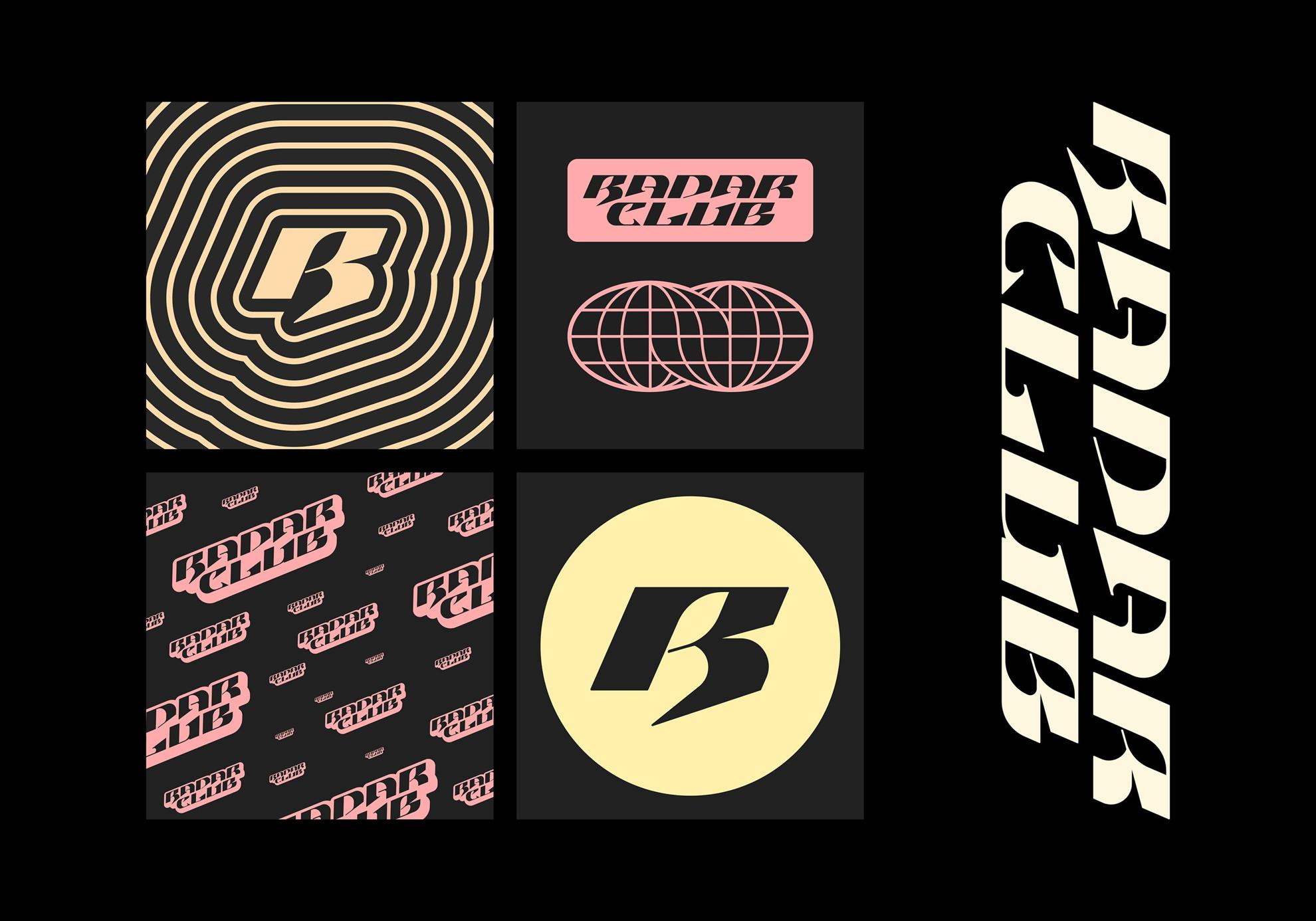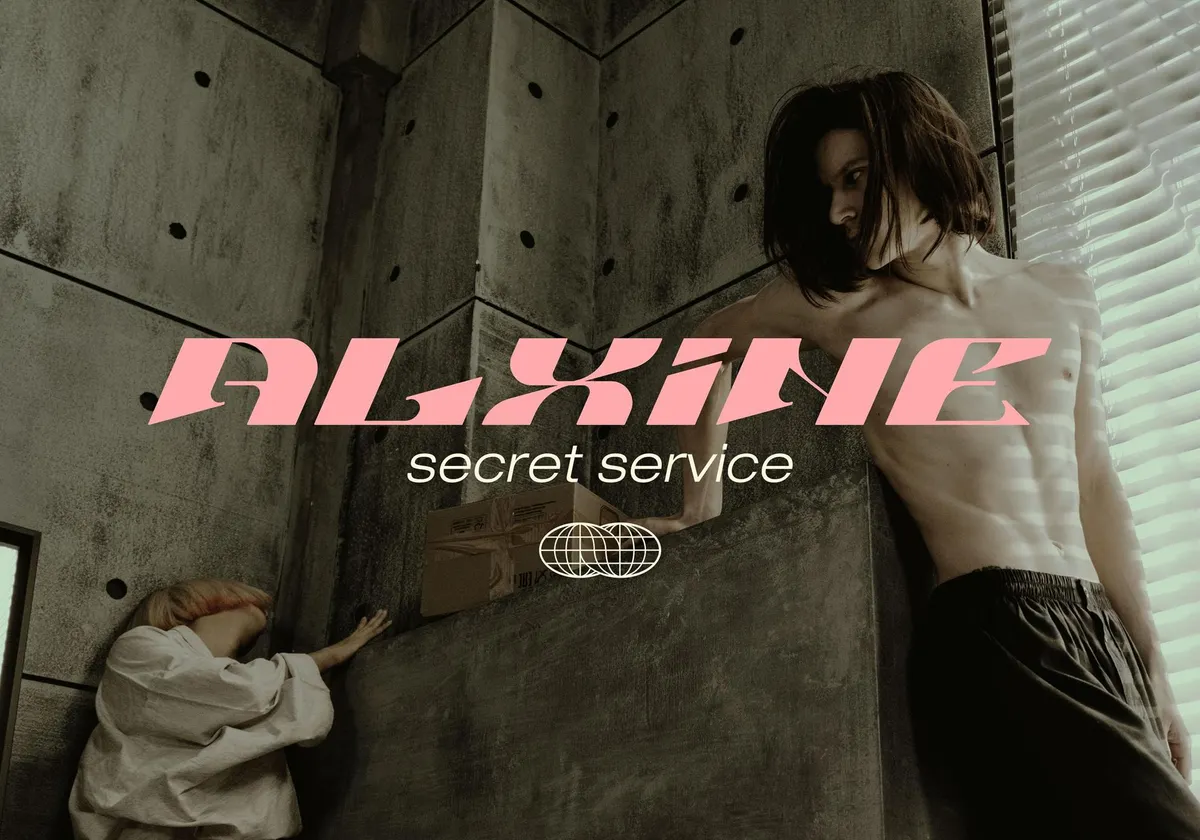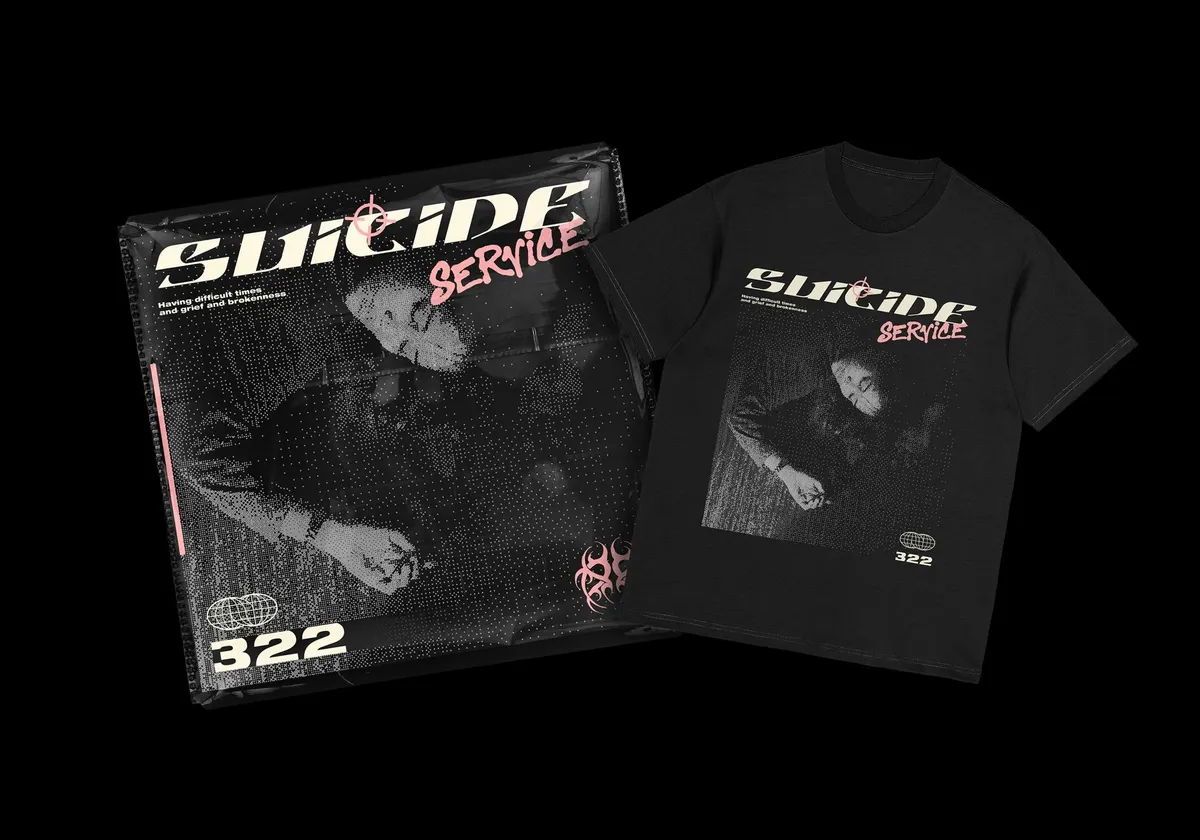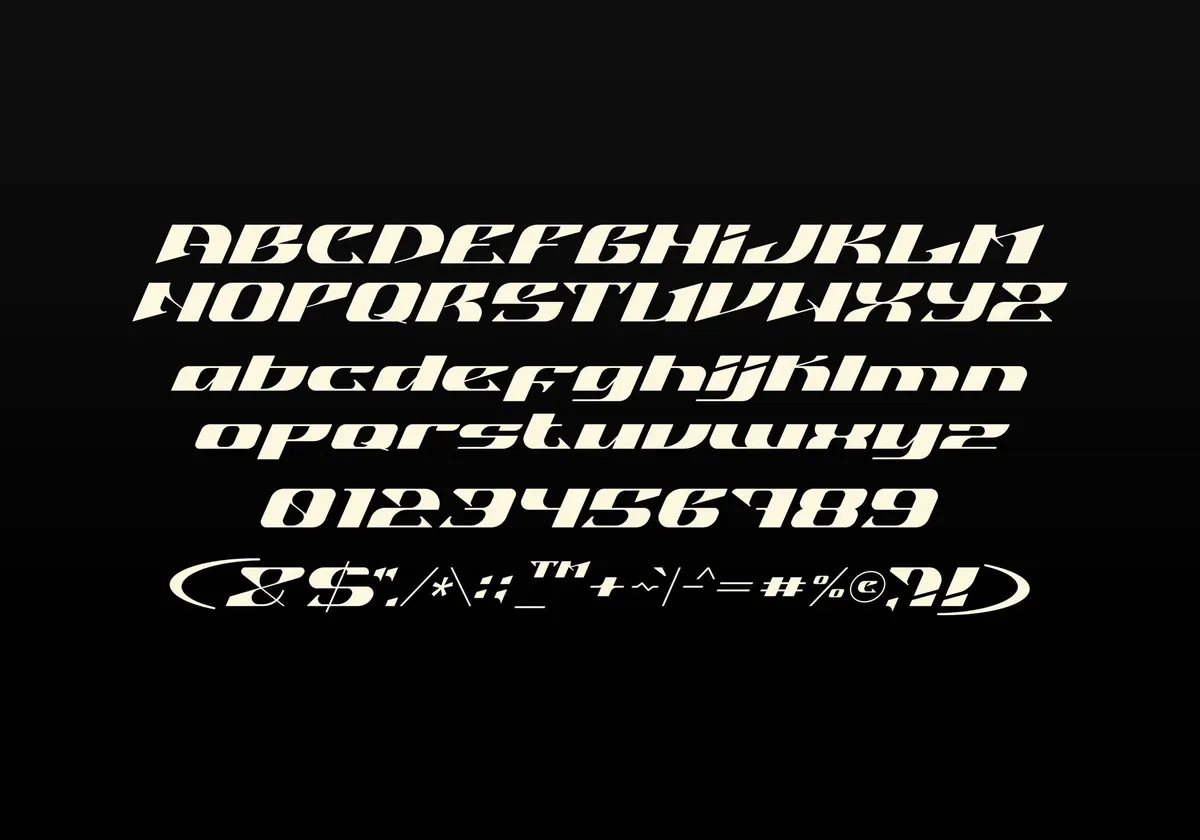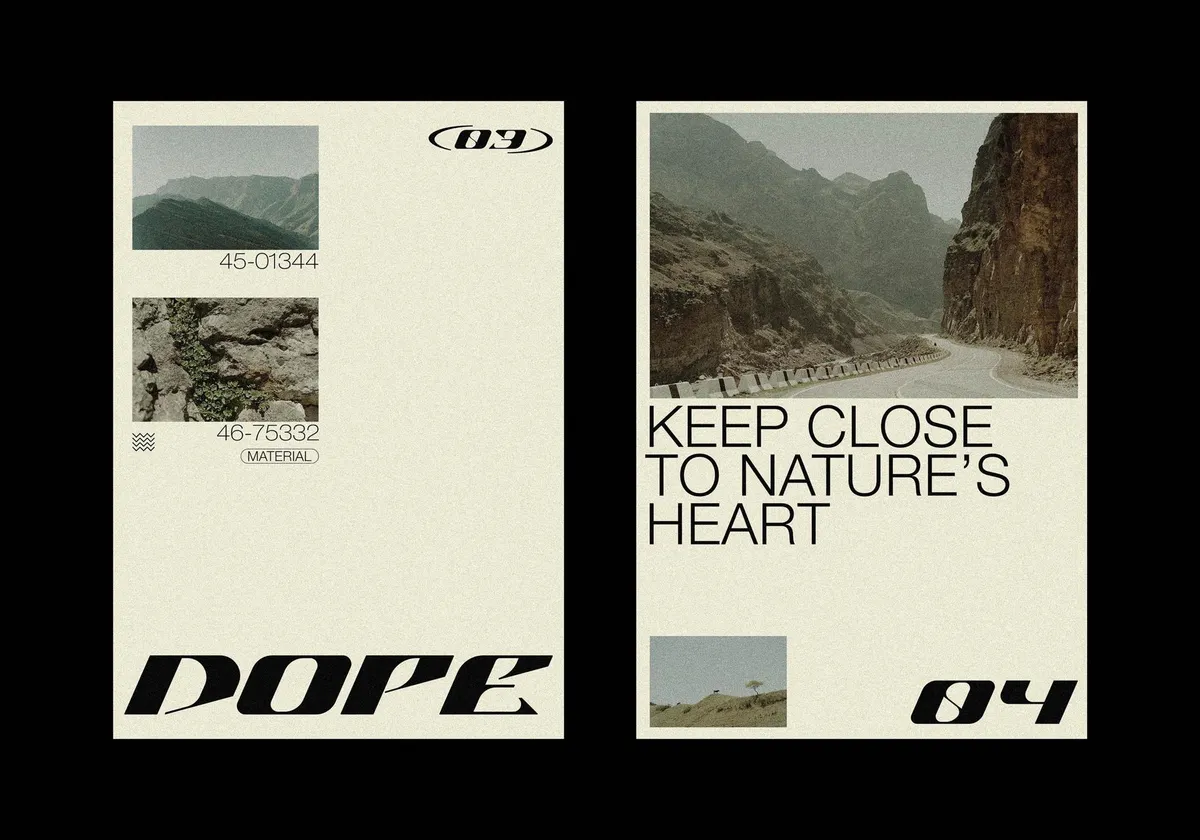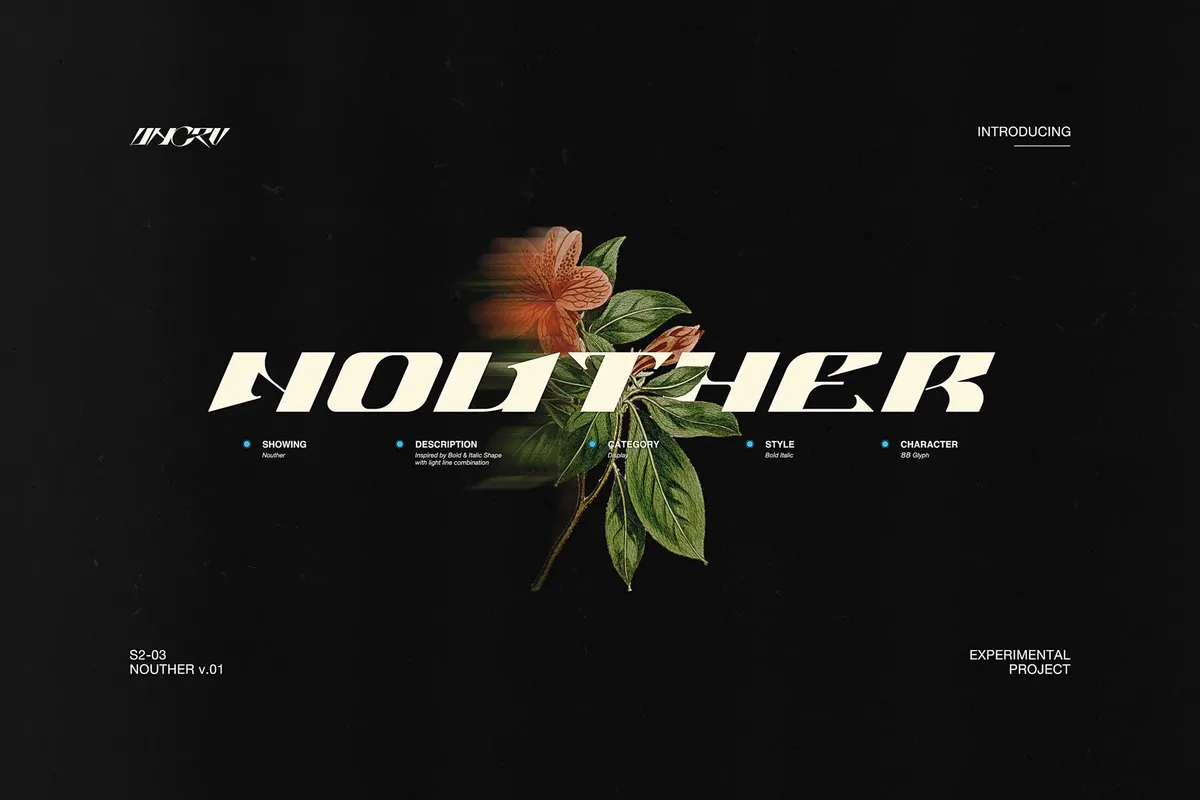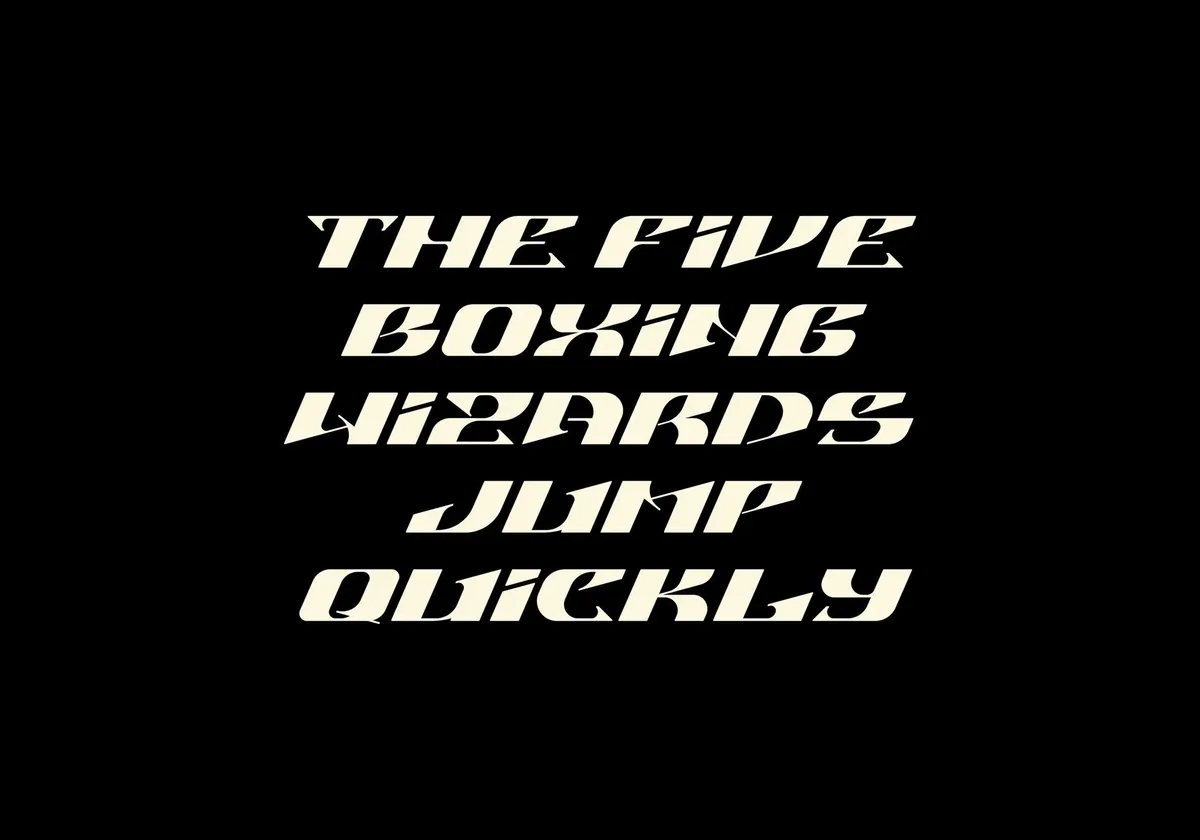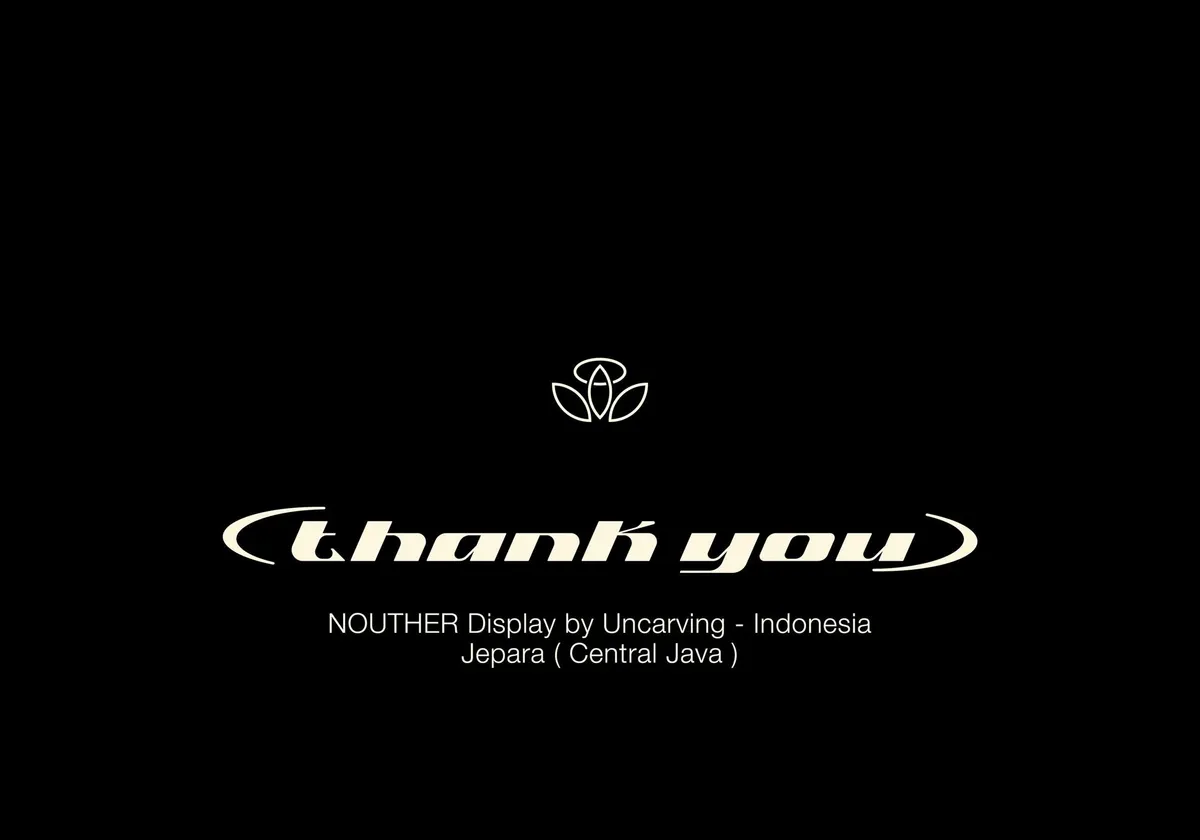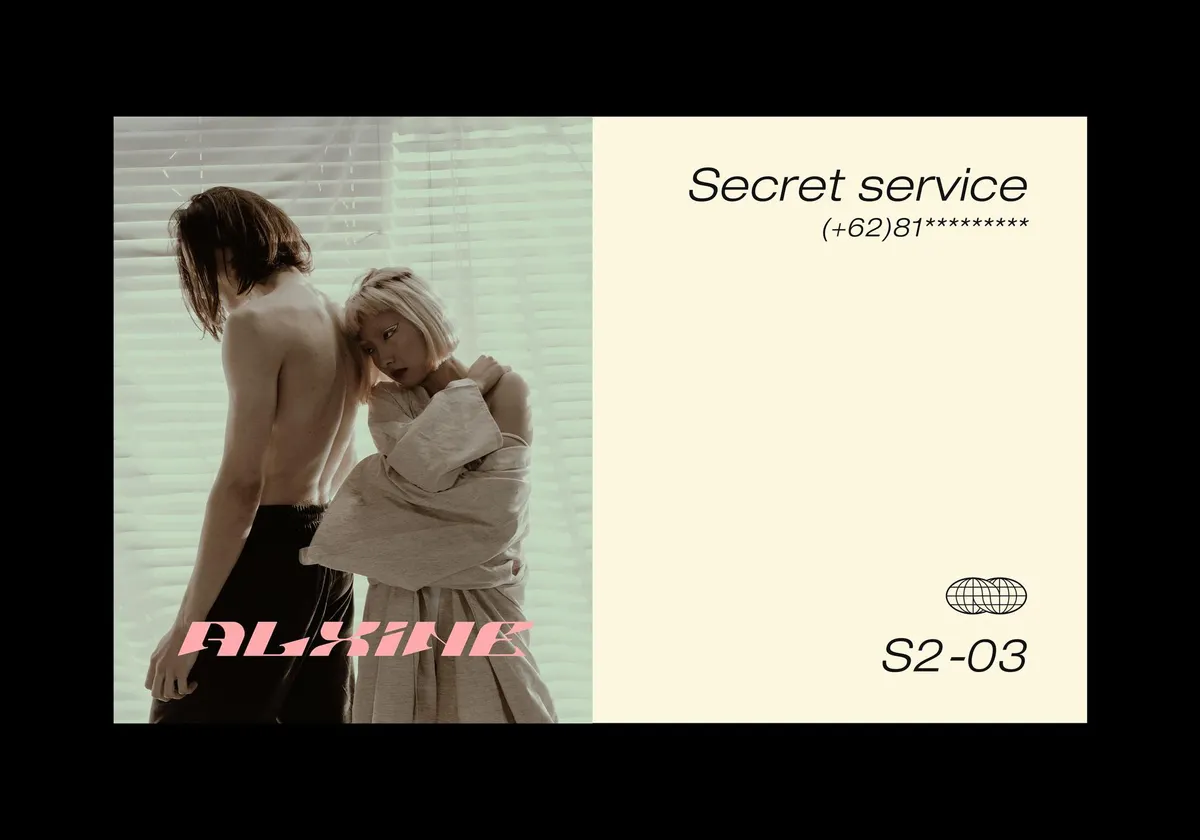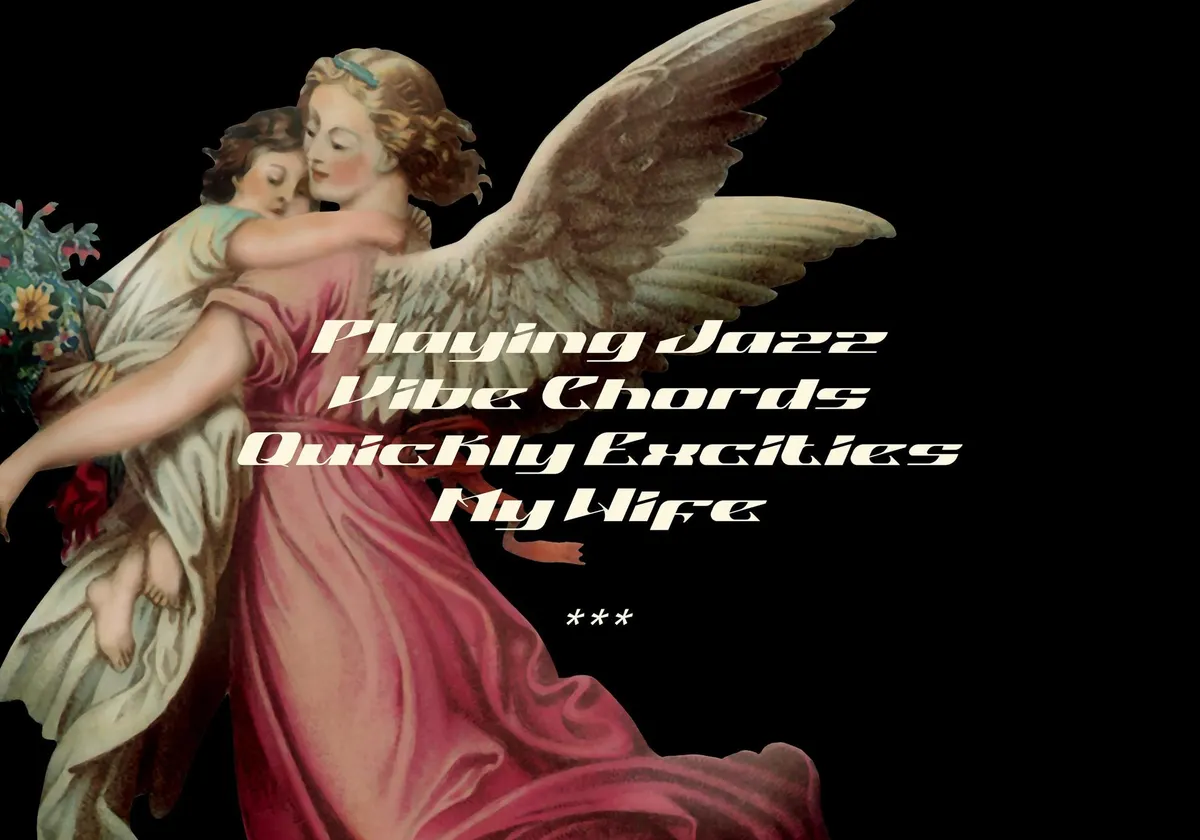
Nouther — Display Font
Futurism + romantic style combo might sound oxymoronic, but that was before we discovered Nouther. It’s an italic font where sci-fi aesthetics softly embrace love letter vibes and Y2K spirit, and it looks like, OH MY GOSH.
Even though merging too many styles is usually a big NO-NO in design, Nouther pulls it off flawlessly, and everyone ends up loving the result. The glyphs sparkle with motion and airiness, yet it’s hard to pinpoint the exact essence of the font. What we can say for sure is that it’s a complete set, perfect for any use: uppercase, lowercase, multilingual support, numerals, and punctuation.